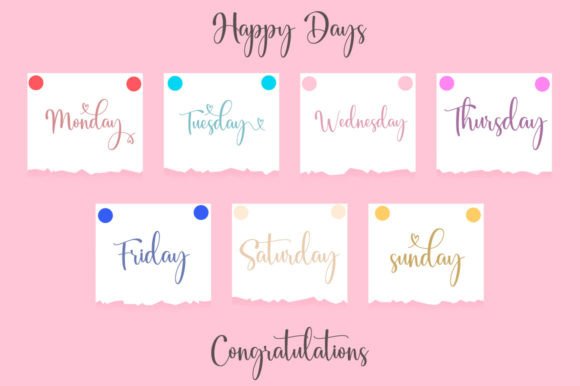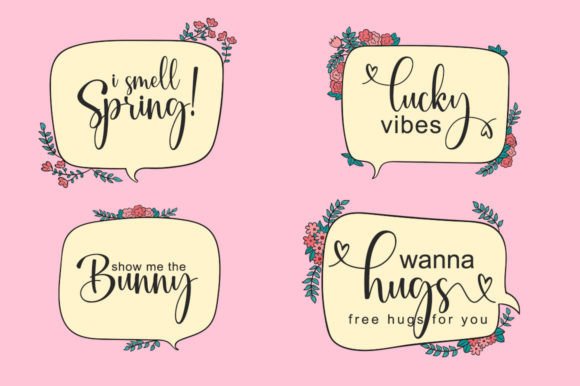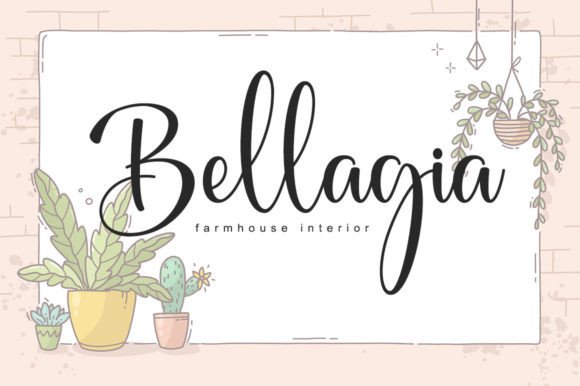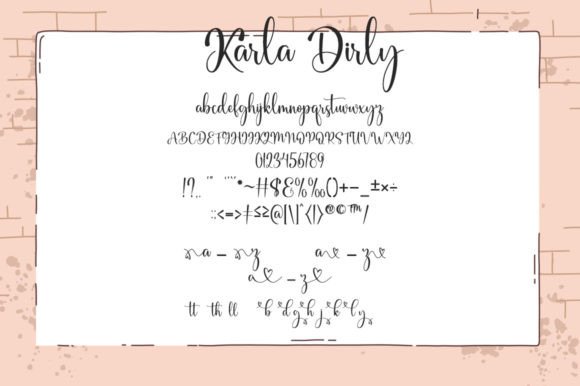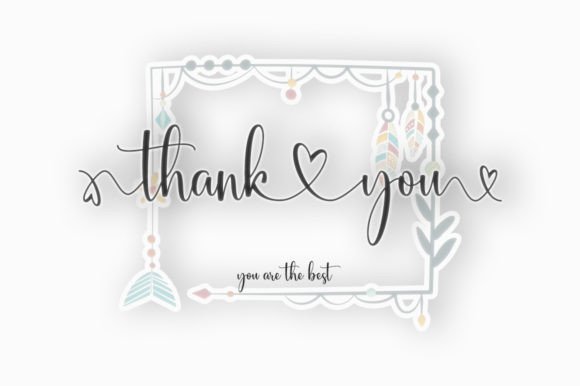
Introduction to Karla Dirly Font
Have you ever been working on a creative project, pouring your heart and soul into it, only to realize that the perfect font is missing? For designers, finding that elusive perfect font can make all the difference in bringing a project to life. That’s exactly what happened to me when I stumbled upon the Karla Dirly Font – a sweet and friendly handwritten font that instantly elevated my design to the next level.
As I delved deeper into the world of Karla Dirly Font, I discovered its incredible versatility and the numerous ways it can be used in various design projects. From style quotes and wedding cards to magazines, fashion, and creative branding, this font is a true design resource that can bring a touch of elegance and sophistication to any project. With its natural and unique style, it’s no wonder why designers are falling in love with Karla Dirly Font.
What sets Karla Dirly Font apart from other fonts is its PUA encoded feature, which allows for easy access to all the glyphs and ligatures. This means that designers can download the font for free and enjoy a high-quality, transparent background that’s perfect for any creative project.
Key Features of Karla Dirly Font
- High-quality font designed for creative projects, offering a unique and elegant style.
- Designed by Karla Dirly, a renowned font designer, offering a level of expertise and craftsmanship that sets this font apart from others.
Honest Review: Karla Dirly Font
I recently had the chance to work with the Karla Dirly Font, and I must say it’s been a great addition to my design resource library. The font is a beautiful, elegant script that’s perfect for creative projects that require a touch of sophistication.
One of the things that works well with the Karla Dirly Font is its versatility. It can be used for a variety of applications, from wedding invitations to product labels, and it always looks great. The font is also available for free download, which is a huge plus in my book.
Here are some of the features that I love about the Karla Dirly Font:
- Transparent background, making it easy to use with any design
- Beautiful, elegant script that’s perfect for weddings, events, and more
⚠️ One limitation I’ve noticed is that the font can be a bit difficult to read in certain font sizes. However, this is a minor issue and can be easily fixed with a bit of tweaking.
Overall, I’m really impressed with the Karla Dirly Font. It’s a high-quality design resource that’s perfect for any creative project. I’d definitely recommend it to anyone looking for a beautiful, elegant script font.
Tips for Getting the Most Out of Karla Dirly Font
To get the most out of Karla Dirly Font, use it with a transparent background to create a high-quality design. You can also use it in combination with other fonts to create a unique and creative project.
Karla Dirly Font is commonly used in design projects that require a modern and clean look, such as logos, business cards, and brochures. It is also great for creating presentations and documents that require a professional touch.